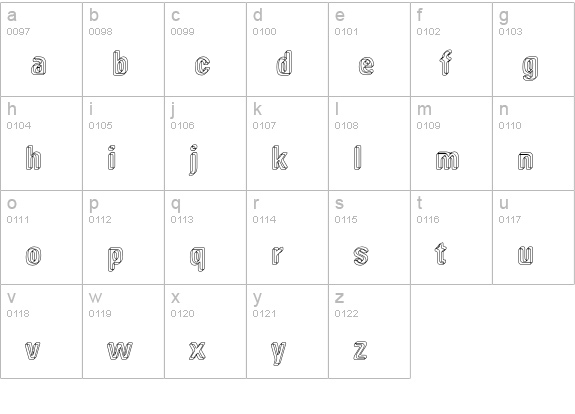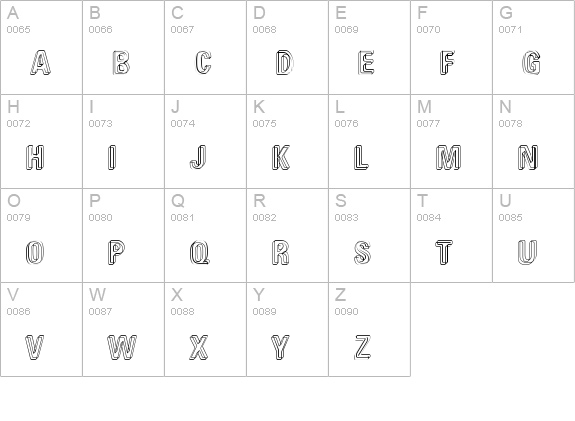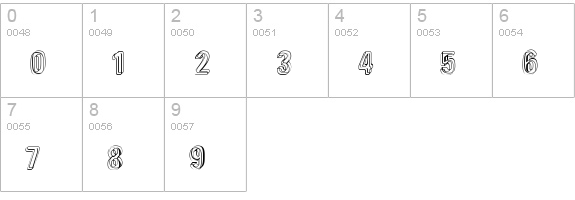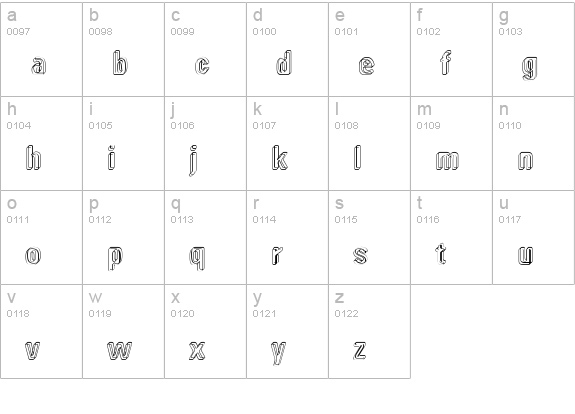
LowTech-Regular is the standard, neutral variant in the LowTech typeface family \xE2\x80\x94 well suited to general body text, paragraphs, and standard typographic work.
LowTech-Regular font is a versatile and charming typeface that exudes a sense of simplicity and authenticity. With its clean lines and classic aesthetic, this font is perfect for a wide range of design projects, from logos to posters to packaging. The timeless appeal of LowTech-Regular makes it a go-to choice for designers looking to add a touch of elegance to their work. Best of all, LowTech-Regular is available for free download at FontsMarket.com. This means that you can easily access this beautiful font and use it in your projects without any cost. Whether you're a seasoned designer or just starting out, LowTech-Regular is a fantastic addition to your font collection. Download it today and elevate your designs with its timeless charm and style.